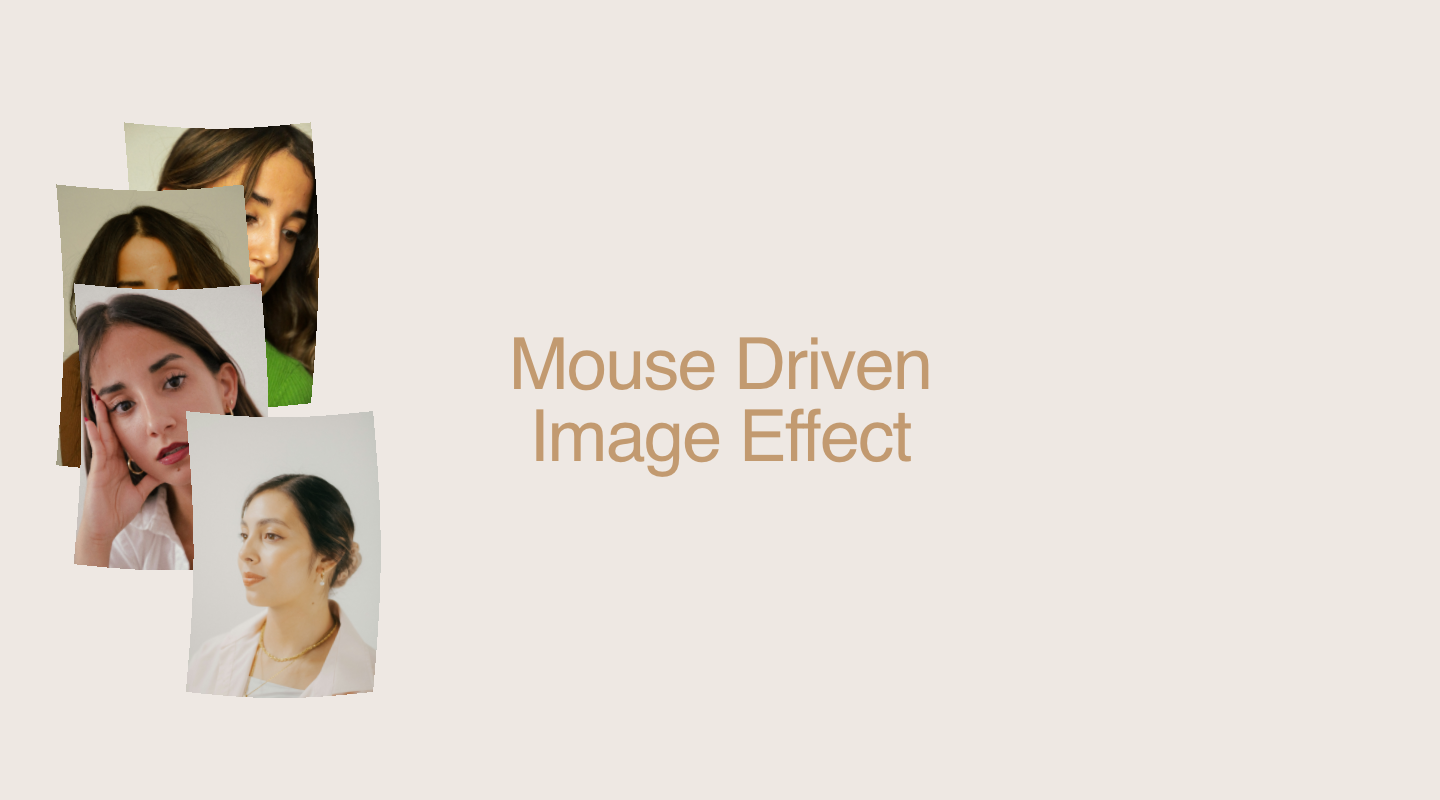
The Helvetica font on real websites
8 websites set in Helvetica, with their font pairings and stack.
Helvetica is a commercial neo-grotesque sans-serif by Max Miedinger, Eduard Hoffmann (Haas Type Foundry), released in 1957. The Swiss neo-grotesque that defined modernist corporate design. Plain, tightly spaced and everywhere, still a reference point for neutral sans-serifs.
- Sans-serif, neo-grotesque sans-serif
- Max Miedinger, Eduard Hoffmann
- Haas Type Foundry
- 1957
8 websites in the save.design library use Helvetica. It shows up most on e-commerce and portfolio sites. It's most often paired with Menlo, Azonix and Verdana. Sites using Helvetica are most often built with React (50%).
Which websites use Helvetica?
Recent examples include karocrafts.com, qtcapital.ai, jamesclapham.com and mew.xyz. All 8 websites using Helvetica are on this page, with the rest of their fonts and their tech stack.
What fonts pair well with Helvetica?
On real sites, Helvetica is most often set alongside Menlo (25% of them), Azonix (13% of them) and Verdana (13% of them).